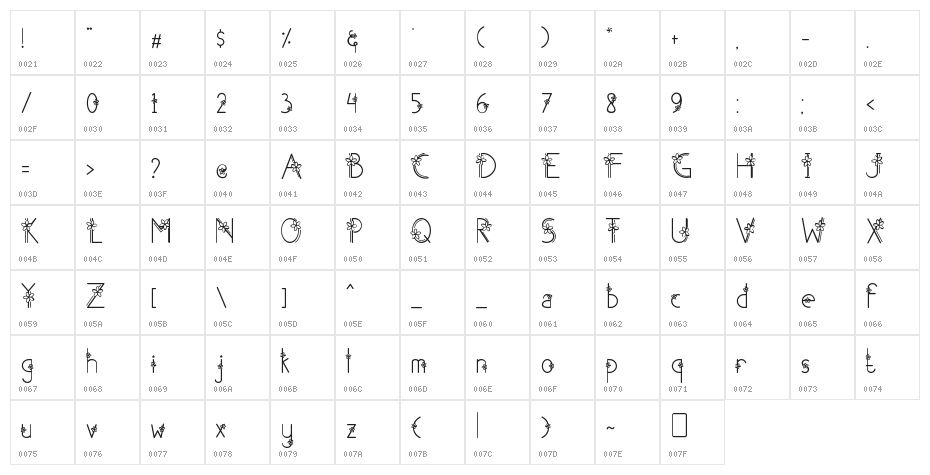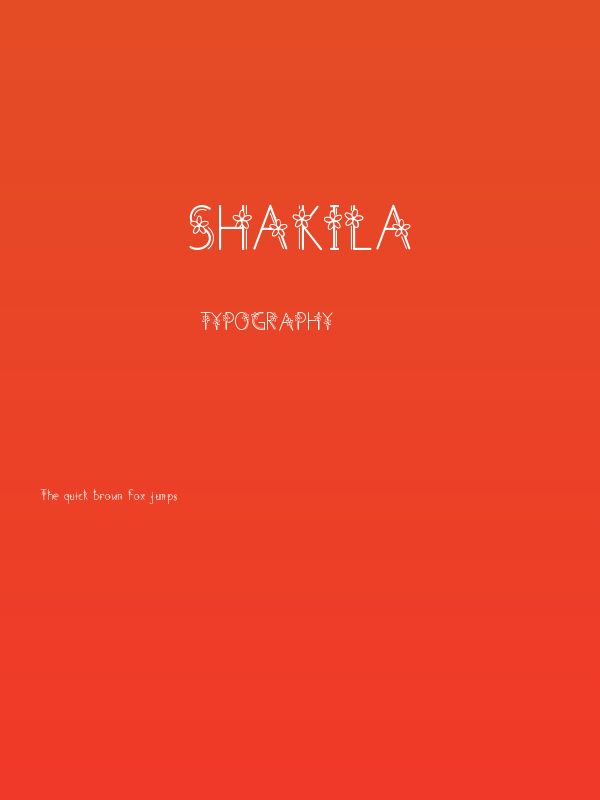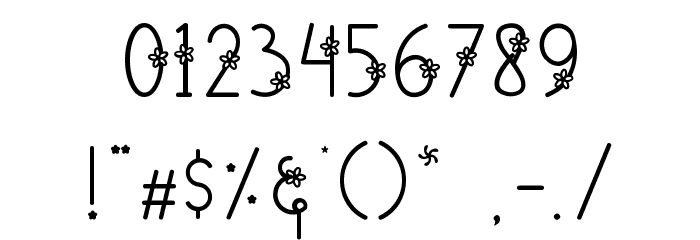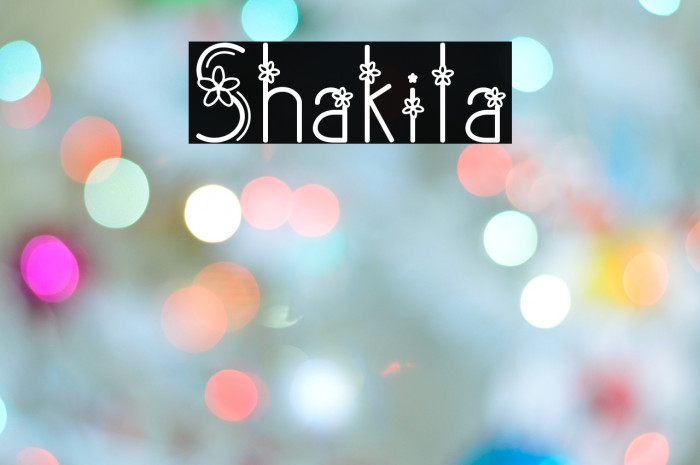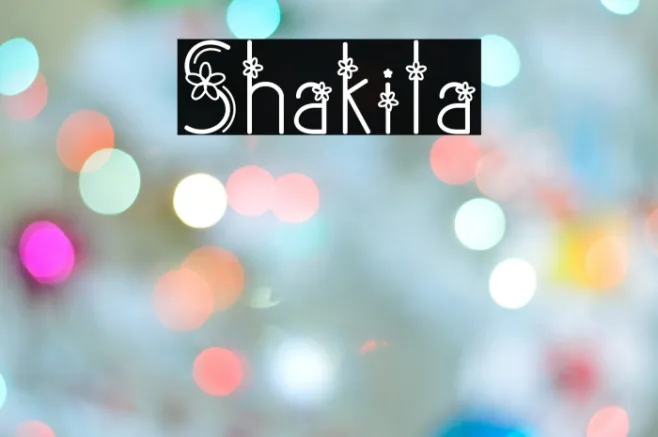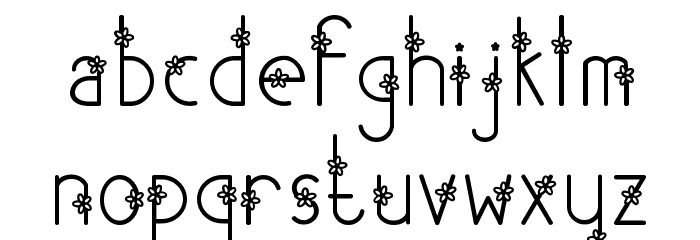
Shakila Font
Shakila Description
This whimsical and decorative font features a unique floral motif integrated into each character, giving it a playful and artistic appearance. The letters are outlined with a consistent stroke width, and the floral elements add a touch of nature-inspired elegance. The uppercase and lowercase letters maintain a cohesive style, while the numbers and special characters seamlessly incorporate the floral design. This font is perfect for projects that require a touch of creativity and charm, such as invitations, greeting cards, or playful branding materials.
| Proposed Projects | Ideal for invitations, greeting cards, playful branding, and artistic designs. |